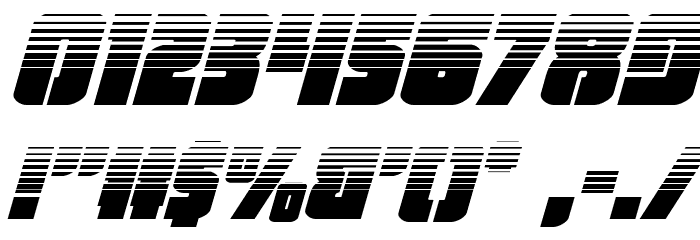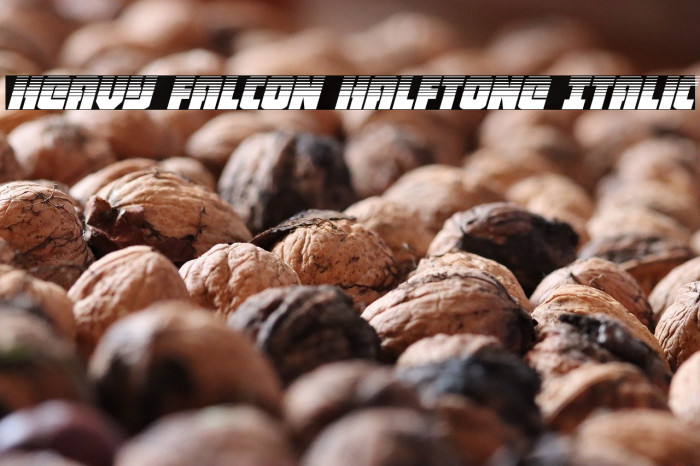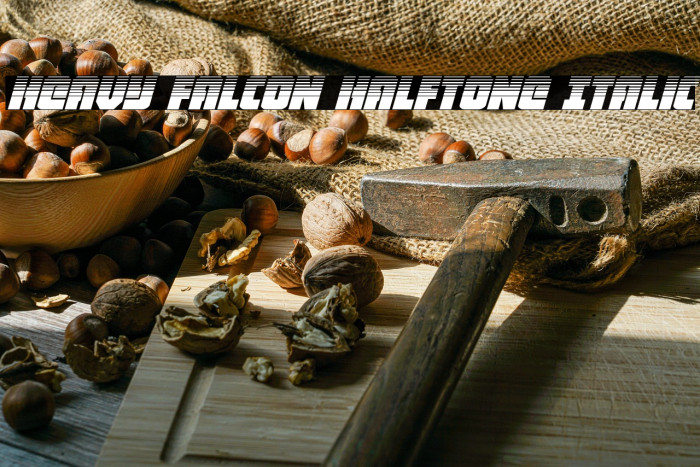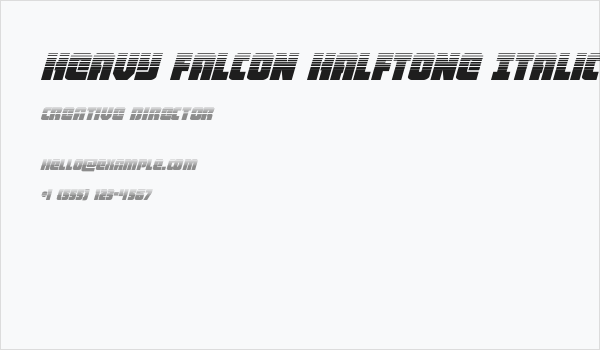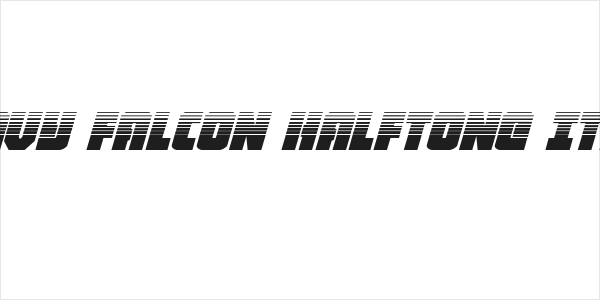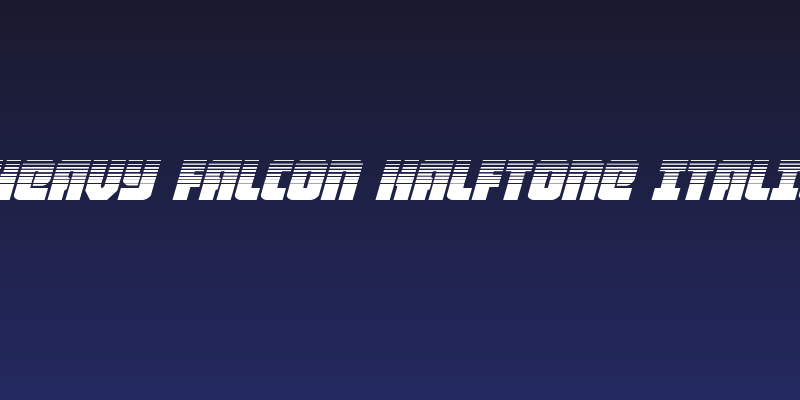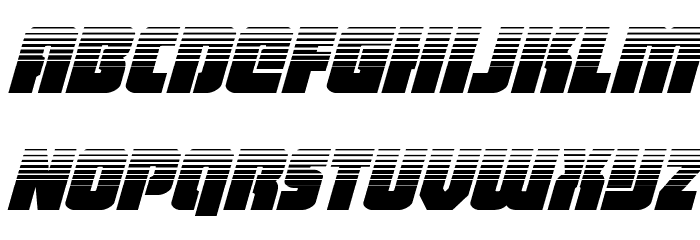
Heavy Falcon Halftone Italic Font
Heavy Falcon Halftone Italic Description
This font features a bold, dynamic style with a halftone effect that creates a sense of movement and energy. The characters are italicized, adding a forward-leaning emphasis that enhances its modern and futuristic appeal. The uppercase and lowercase letters, along with numerals and special characters, are designed with a consistent pattern of horizontal lines that gradually increase in density, giving a unique textured appearance. This design choice makes it particularly eye-catching and suitable for projects that require a strong visual impact. The font's structure is robust, with thick strokes that ensure readability while maintaining its distinctive aesthetic.